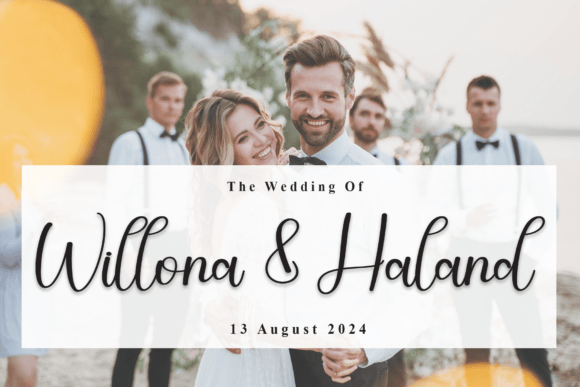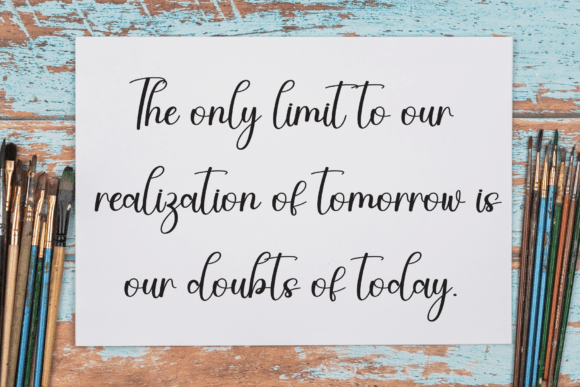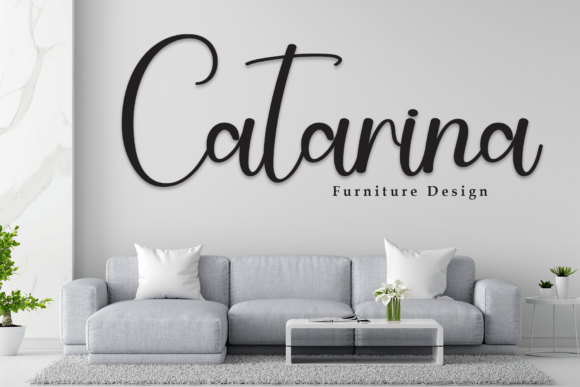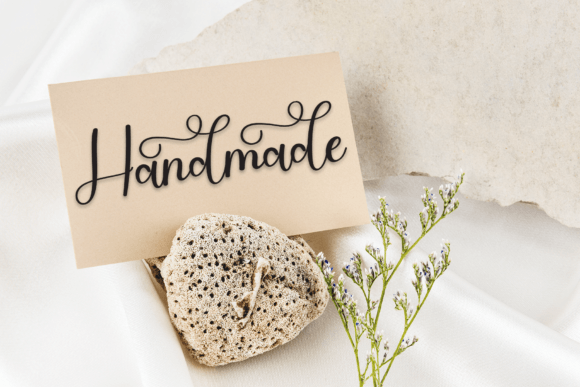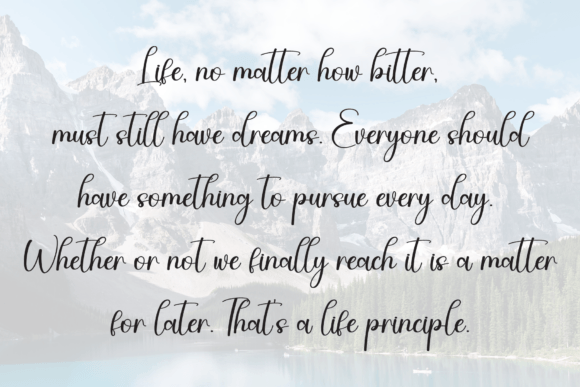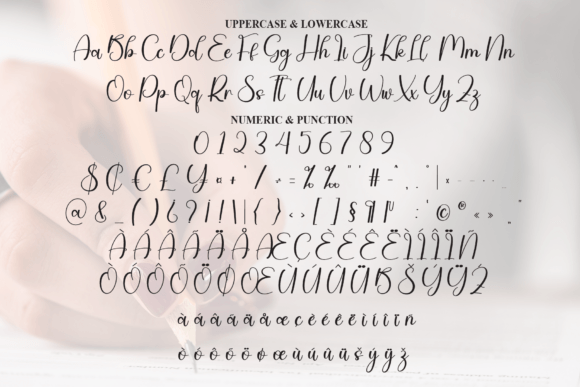
The Perfect Handwritten Touch
There’s nothing quite like the feeling of scribbling down a creative idea that suddenly sparks in your mind. The rush of adrenaline, the excitement of bringing your vision to life – it’s a moment that every designer knows all too well. And what’s often the first step in making that idea a reality? Choosing the right font to bring it to life.
That’s where the Angela Signature Font comes in – a bold, handwritten font that captures the essence of natural, stylish handwriting. With its thick lines and smooth curves, it’s the perfect tool for adding a personal and elegant touch to your designs. Whether you’re a graphic designer, a marketer, or a crafter, this font is a valuable addition to your toolkit.
So, what makes the Angela Signature Font so special? For starters, it’s incredibly versatile – use it for headings, body text, or even as a decorative element to add some visual interest to your designs. With its unique, handwritten feel, it’s sure to set your projects apart from the crowd.
Angela Signature Font Key Features
- Font Family: Angela Signature Font is a unique, handwritten font designed to resemble Angela Ahrendts’ signature.
- Unique Characteristics: The font features fluid connections between letters, giving it a personal and dynamic feel, perfect for adding a touch of elegance and sophistication to designs.
Angela Signature Font Review
Overall, I found the Angela Signature Font to be a decent addition to any designer’s toolkit. Here are some points to consider:
- ✨ Elegant and sophisticated design: The font’s curves and lines create a smooth, professional look that works well for a variety of applications.
- ✨ Versatile: Angela Signature Font is suitable for both personal and commercial projects, making it a great option for designers who want a font that can adapt to different contexts.
- ✨ Good for large text: The font’s design makes it easy to read even in larger font sizes, which is a plus for headings and titles.
- ⚠️ Limited character set: The font’s character set is not as extensive as some other fonts, which may cause issues when working with non-English languages.
- ⚠️ Not ideal for small text: While the font is great for larger text, it can become difficult to read when used in smaller font sizes.
Overall, I think the Angela Signature Font is a solid choice for designers who want a sophisticated, professional font. While it may not be perfect, its strengths outweigh its limitations, making it a great addition to any toolkit.
Tips for Getting the Most Out of the Angela Signature Font
Use the Angela Signature Font in combination with other design elements, such as images and graphics, to create a unique and eye-catching look.
Experiment with different font sizes, colors, and styles to create a customized look that suits your needs.
The Angela Signature Font is perfect for creating personalized and unique designs, such as: